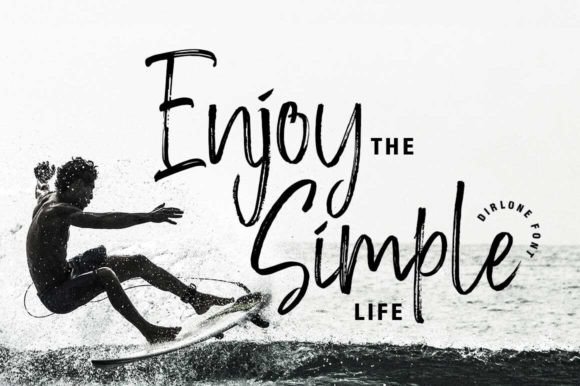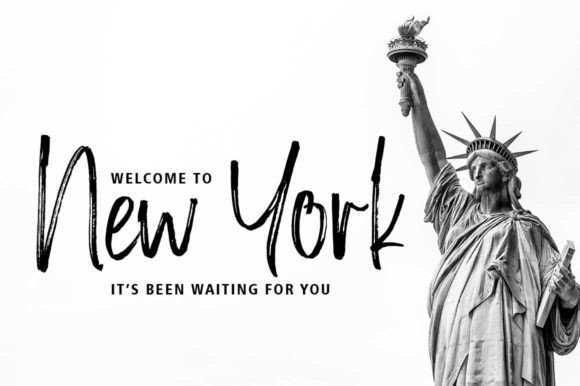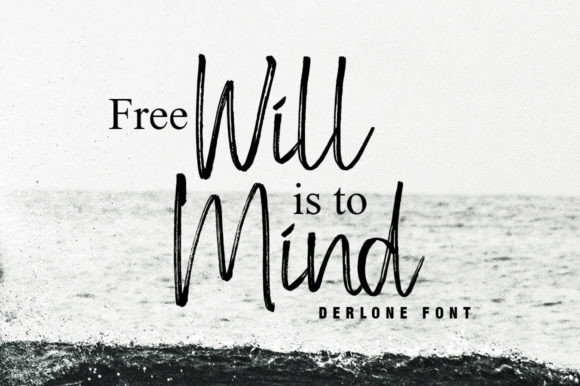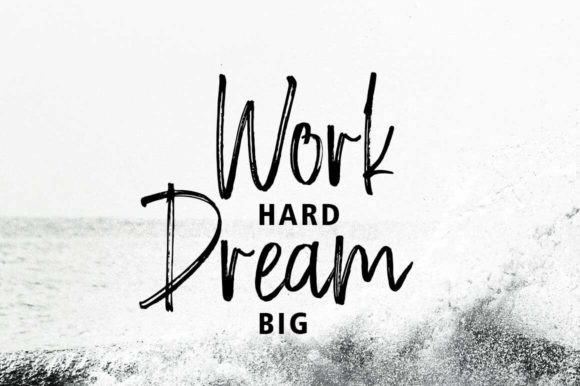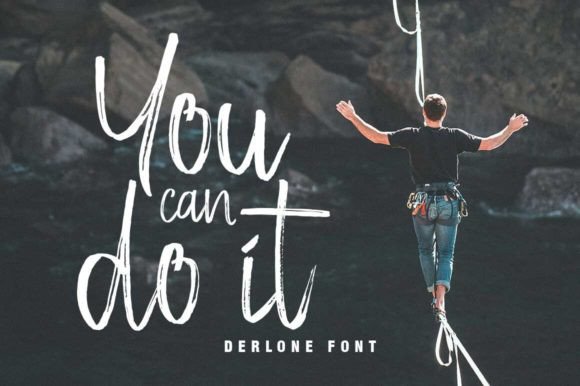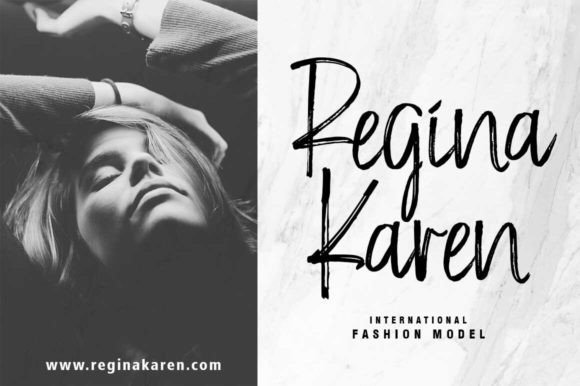
Introducing Derlone Font: The Modern Brush Font for Creative Designs
In the world of typography, a new font has emerged that is taking the design community by storm. Meet Derlone Font, a modern brush font that boasts an irregular basic line, giving it a unique and contemporary look. With its natural, handmade feel, Derlone Font is perfect for designers and crafters looking to add a touch of personality to their designs.
What Makes Derlone Font Special?
Derlone Font is designed with a contemporary approach, making it suitable for a wide range of design applications. Its irregular basic lines give it a distinctive, hand-crafted look that is reminiscent of traditional brush calligraphy. This font is perfect for designers who want to add a touch of whimsy and creativity to their designs.
One of the best things about Derlone Font is its versatility. It can be used in a variety of design applications, including:
- Title designs for clothing and fashion brands
- Invitations and event branding
- Book titles and covers
- Stationery designs, such as letterheads and business cards
- Quote designs and social media graphics
- Branding and logo designs
- Greeting cards and holiday designs
- T-shirt designs and apparel
- Packaging designs and labels
Features of Derlone Font
Derlone Font comes with a range of features that make it a valuable addition to any designer’s toolkit. Some of its key features include:
- Complete with upper and lower case letters
- Multi-language support
- Numbers and punctuation marks
- Several ligatures to add a touch of elegance to your designs
Why Choose Derlone Font?
So, why should you choose Derlone Font for your design projects? Here are just a few reasons:
- Unique and distinctive look: Derlone Font’s irregular basic lines give it a one-of-a-kind look that will set your designs apart from the crowd.
- Versatility: With its wide range of applications, Derlone Font is a font that can be used in many different design contexts.
- Ease of use: Derlone Font is easy to use and comes with a range of features that make it simple to incorporate into your designs.
- High-quality design: Derlone Font is designed to high standards, ensuring that your designs look professional and polished.
Tips for Using Derlone Font
Here are a few tips for getting the most out of Derlone Font:
- Experiment with different sizes and colors to find the perfect look for your design.
- Use Derlone Font to add a touch of personality to your designs, but be mindful of legibility.
- Pair Derlone Font with other fonts to create a unique and interesting contrast.
- Don’t be afraid to get creative and try out new and innovative ways of using Derlone Font.
| Font Name | Derlone Font |
| Author | softcreative50 |
In conclusion, Derlone Font is a modern brush font that is perfect for designers and crafters looking to add a touch of personality to their designs. With its unique and distinctive look, versatility, and range of features, Derlone Font is a valuable addition to any designer’s toolkit. Whether you’re designing a title for a clothing brand, creating an invitation, or crafting a logo, Derlone Font is a great choice.